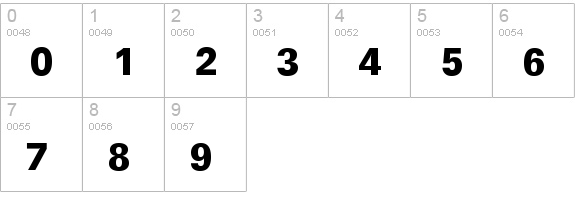
MaximaEF-Bold is a strong, high-contrast variant in the MaximaEF typeface family \xE2\x80\x94 well suited to headlines, attention-grabbing titles, and strong calls-to-action.
MaximaEF-Bold is a striking and bold typeface that commands attention with its strong and powerful presence. Its clean lines and robust design make it perfect for headlines, titles, and branding projects that require a bold statement. This font exudes a sense of confidence and modernity, making it ideal for projects that need to make a lasting impact. What makes MaximaEF-Bold even better is that it is completely free to download at FontsMarket.com. This means you can easily access this impressive font for your design projects without any cost. With its versatility and bold aesthetic, MaximaEF-Bold is sure to enhance your designs and help you stand out from the crowd.